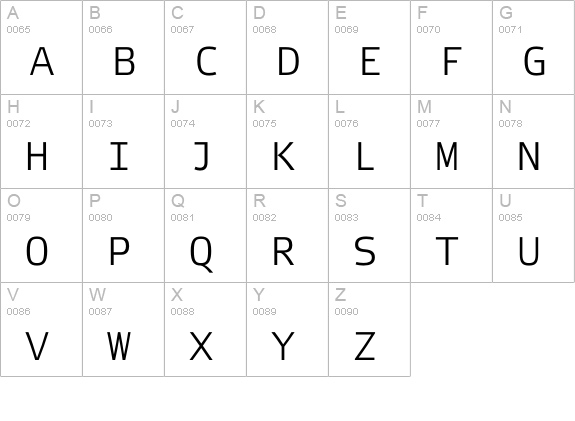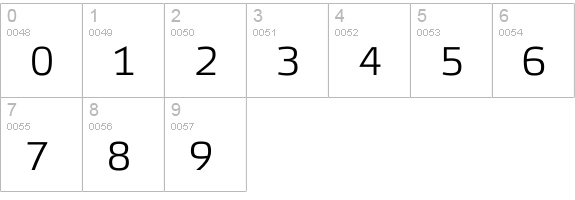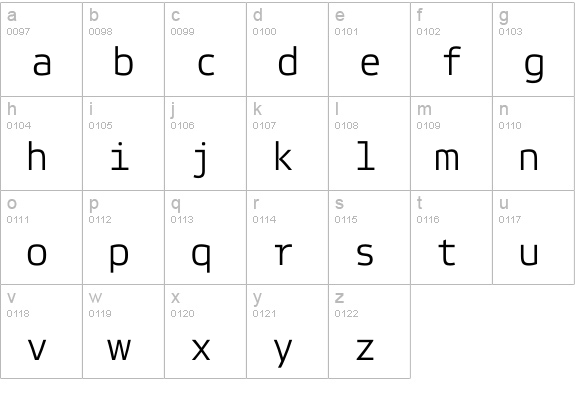
Etelka Monospace Pro Font Details
Etelka Monospace Pro is a modern and versatile monospaced font that is perfect for coding, programming, and any other type of design work requiring a clean and organized appearance. With its crisp letterforms and excellent readability, this font is a popular choice among developers and designers alike. What sets Etelka Monospace Pro apart is its sleek and professional look, making it suitable for a wide range of projects. Whether you're working on a website, a software application, or a printed piece, this font will give your work a polished and sophisticated feel. Best of all, Etelka Monospace Pro is completely free to download at FontsMarket.com. This means you can access this high-quality font without breaking the bank, making it an excellent choice for both personal and commercial projects. Don't miss out on the opportunity to enhance your designs with the elegance and precision of Etelka Monospace Pro font today!